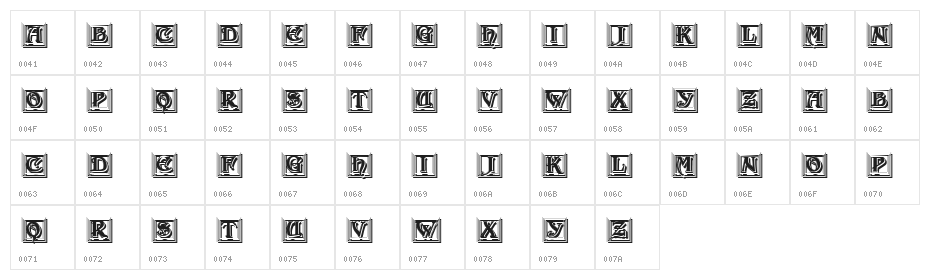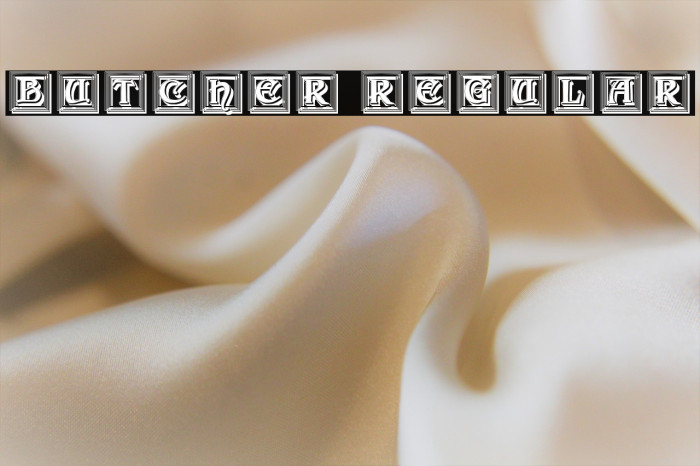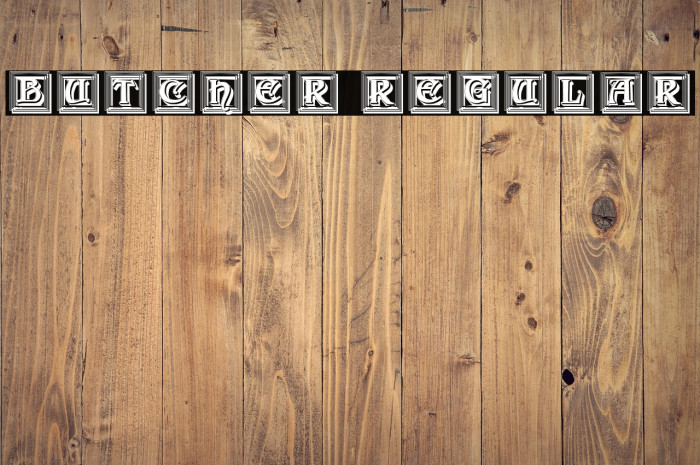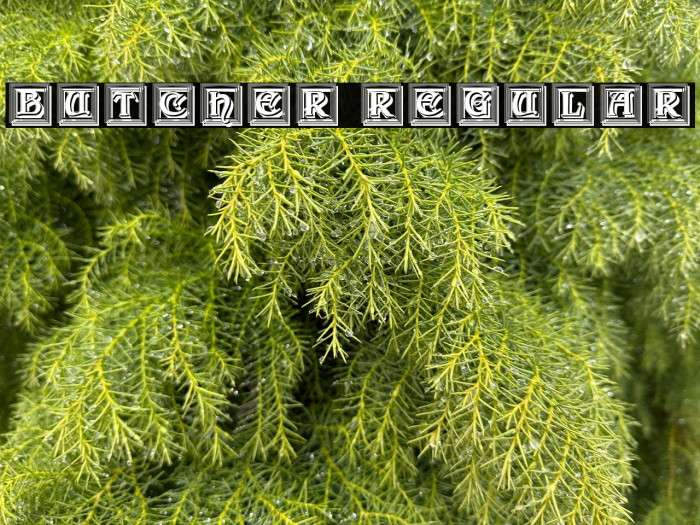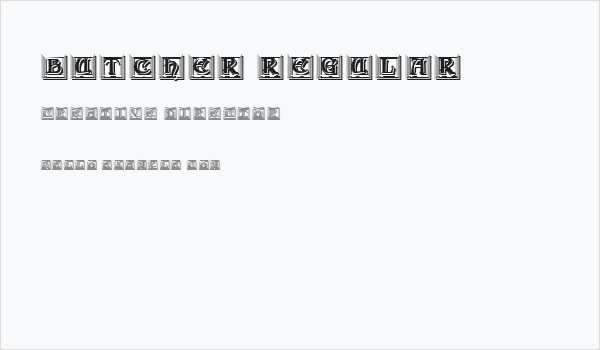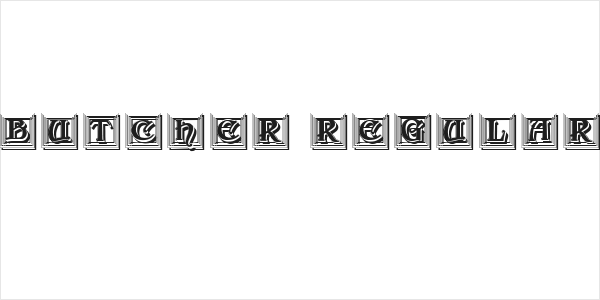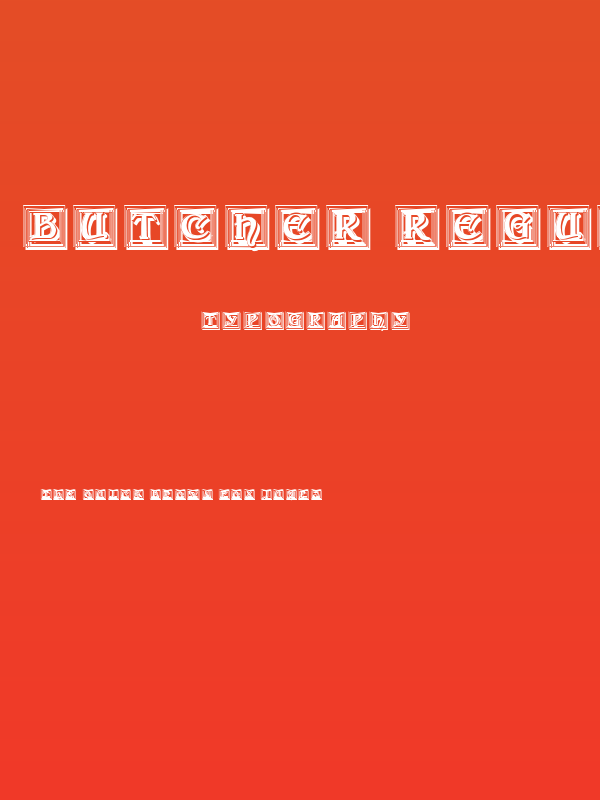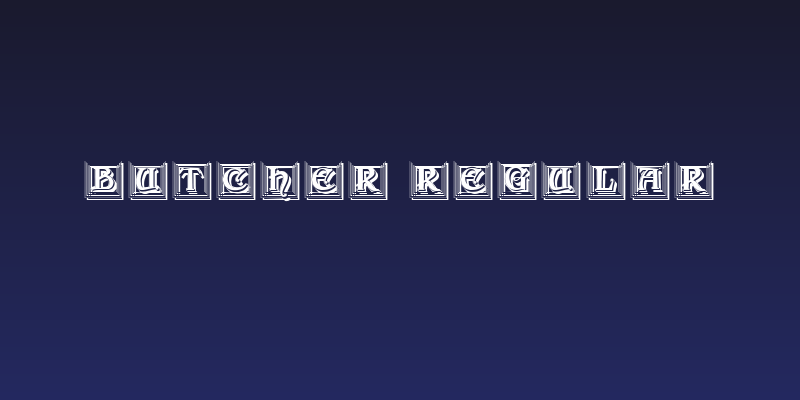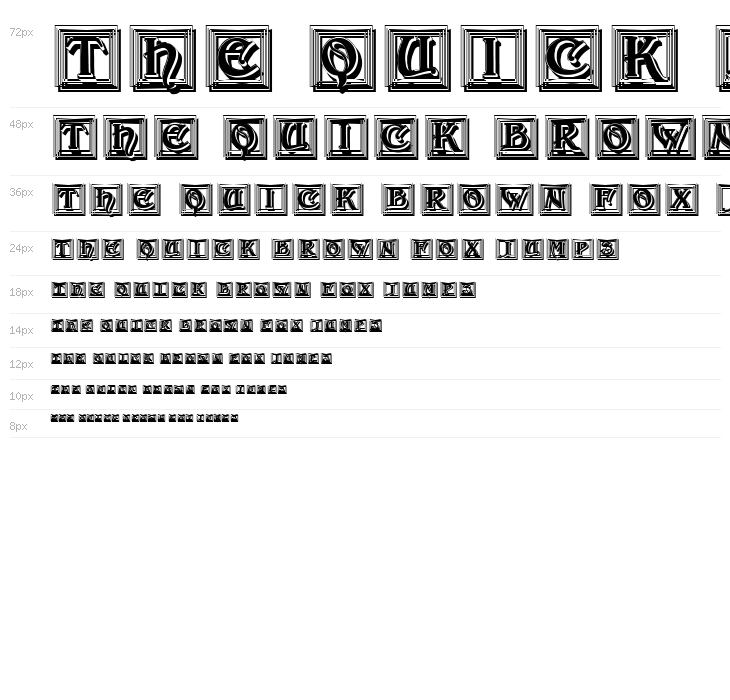
Butcher Regular Font
Butcher Regular Description
This font features a bold, decorative style with intricate details and a three-dimensional effect. Each character is enclosed in a square frame, adding a unique boxed appearance. The letters have a shadowed, embossed look, giving them depth and a striking visual impact. The design is highly stylized, with each letter exhibiting a mix of sharp angles and smooth curves, creating a dynamic and eye-catching aesthetic. The font's ornate nature makes it suitable for projects that require a strong visual presence.
| Proposed Projects | Ideal for posters, logos, album covers, and any design needing a bold, decorative touch. |